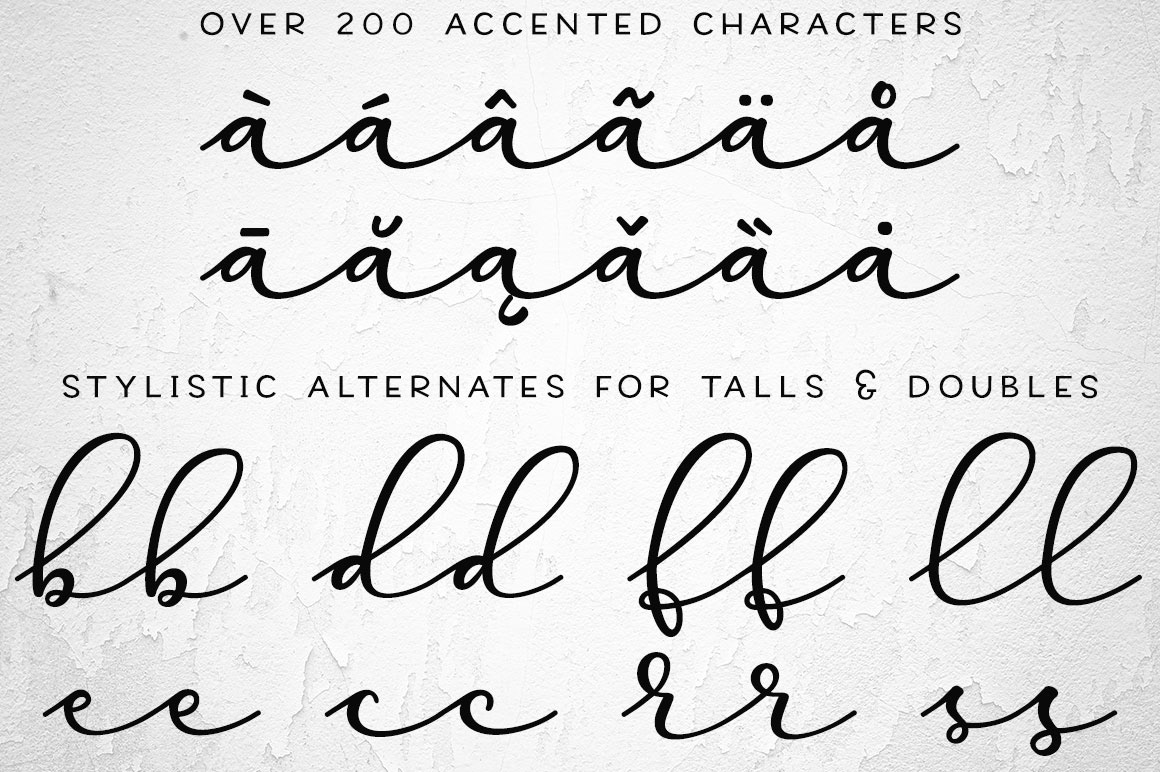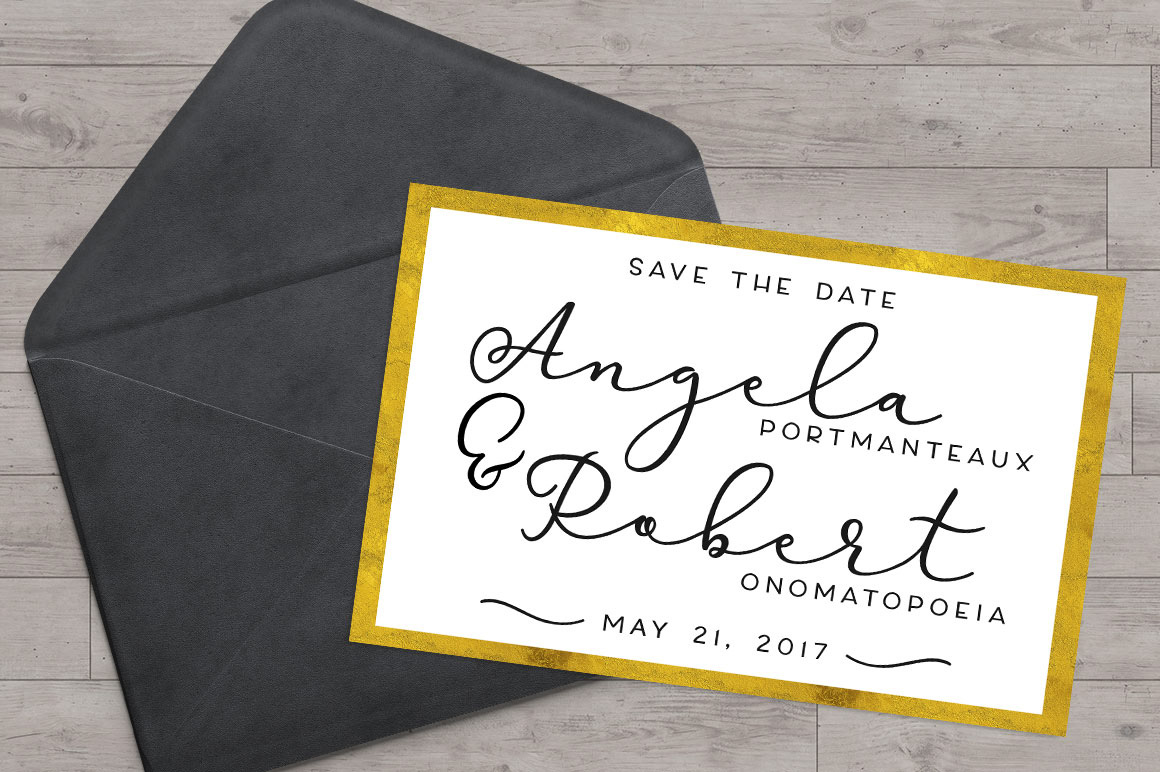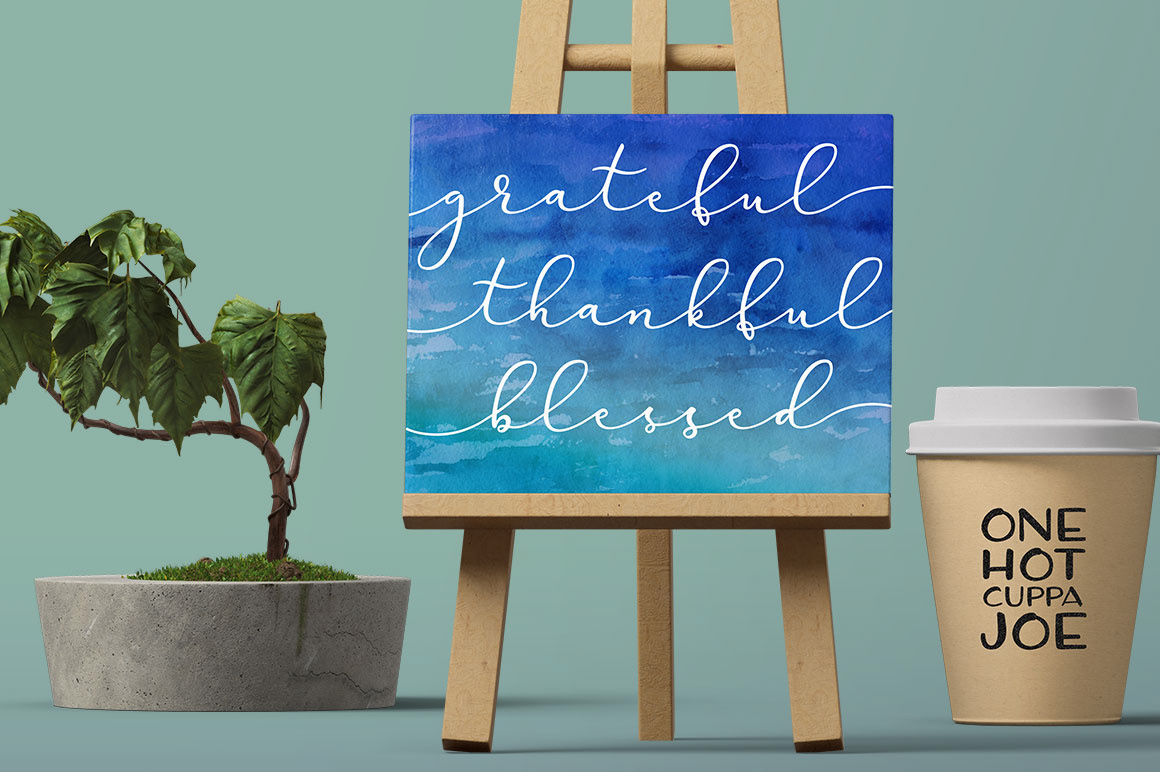
Virga is an atmospheric phenomenon where it’s raining, but the air is so dry that the rain doesn’t reach the ground. It just gets absorbed into the air on the way down, causing a really cool drooping-clouds look. (We see a lot of it here in the deserts of Arizona.)
Virga is also a connecting script font with smooth transitions and extra-fancy uppercase letters, for all of your elegant project needs!
Each lowercase letter in Virga Script has a short stroke leading into the letter, allowing them all to start a word with a little bit of flair. Not to mention, there are 3 entry and 3 exit swashes mapped to the bracket keys, so you can make the beginnings and ends of your words even more dramatic!
Virga Script contains over 200 accented characters for foreign language support (including English, French, Spanish, German, Polish, Romanian, Portuguese, Swedish, Finnish, Norwegian, Danish, Esperanto, Czech, Dutch, Welsh, Filipino, Turkish, and more!)
– Full connecting lowercase, with decorative uppercase letters
– Over 200 accented characters for foreign language support
– 3 entry swashes and 3 exit swashes conveniently mapped to brackets
– 20 stylistic alternate lowercase letters for variety